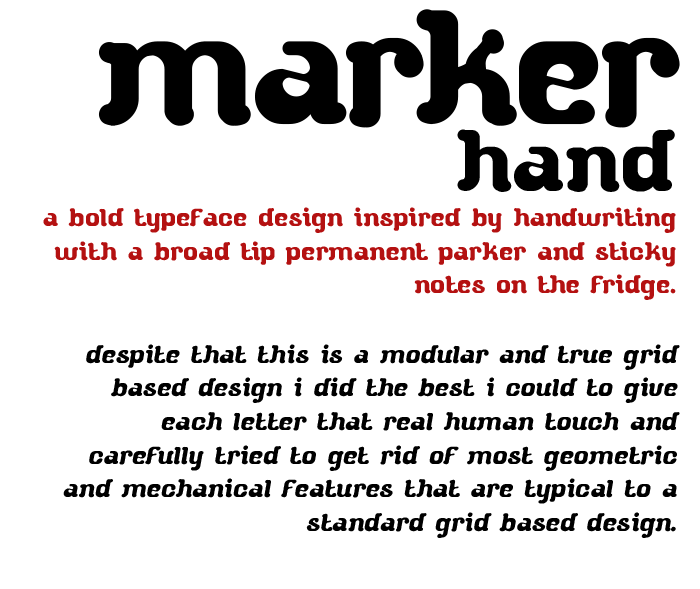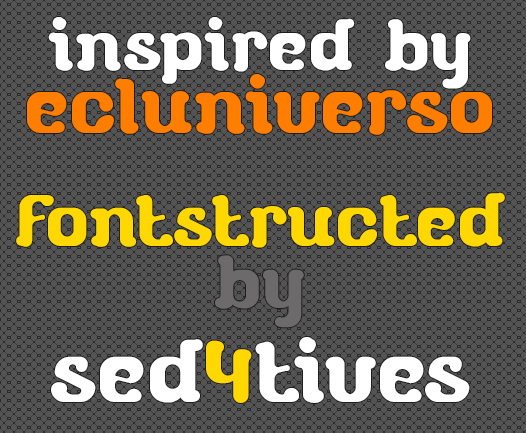
• WIP! -  A new experiment into handwriting fonts.
I was inspired to do a handwriting script font of my own after I saw the recently submitted couple here at fontstruct by ecluniverso. This member's work is very good and unique, check it out here: https://fontstruct.com/fontstructors/1376510/ecluniverso
The design concept for my font is handwriting with a broad-tip permanent marker.
I completed the LC string and numerals, plus some punctuations so far. UC (hopefully) coming soon.
Nice! I like how the widths are casual and cute
Nice:)